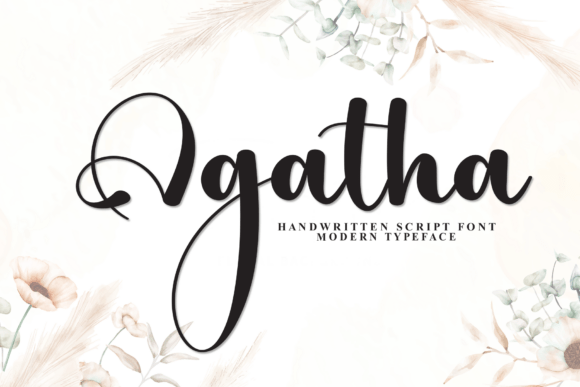
The Perfect Blend of Elegance and Modernity: Agatha Font
As designers, we’ve all been there – staring at a blank canvas, trying to find the perfect font to bring our vision to life. For many of us, it’s the moment when the project’s tone, style, and overall aesthetic start to take shape. And that’s exactly when we turn to the perfect tool – a font that exudes sophistication, elegance, and a hint of modernity.
Meet Agatha Font, the stylish script font that has captured the hearts of designers worldwide. With its fluid curves and carefully crafted letterforms, Agatha Font adds a refined touch to any design, making it perfect for logos, invitations, packaging, and social media graphics. Its versatility and visual appeal make it an invaluable asset for designers looking to elevate their work to the next level.
Agatha Font Key Features
- Font Family: Agatha, Agatha Italic, Agatha Bold, Agatha Bold Italic
- Unique Characteristic: Agatha features a unique blend of vintage and modern elements, with elegant lines and subtle flourishes
Designer Review: Agatha Font
Overall, I’ve found Agatha Font to be a decent addition to any designer’s toolkit. ✨ Its elegant script style is sure to add a touch of sophistication to any project. The font is well-suited for wedding invitations, luxury branding, and other high-end applications.
Here are some of the things that work well with Agatha Font:
- ✨ Elegant script style that adds a touch of sophistication
- ✨ Well-suited for high-end applications like luxury branding and wedding invitations
- ✨ Wide range of weights and styles available for added flexibility
- ⚠️ The font may not be suitable for body text, as it can be difficult to read at smaller sizes
- ⚠️ Some of the weights and styles may feel overly ornate or distracting in certain contexts
- ⚠️ Limited support for certain languages or character sets
In conclusion, Agatha Font is a solid choice for designers looking to add some elegance and sophistication to their projects. While it may not be the best choice for every application, it’s definitely worth considering for high-end or luxury branding projects.
Agatha Font is particularly useful for creating:
- Elegant wedding invitations and stationery.
- High-end business cards and brochures.
- Professional-looking presentations and documents.
Alternatives to Agatha Font
Playfair Display is a high-end serif font ideal for luxury brands and elegant designs. It features intricate details and ornate flourishes, making it perfect for titles and headings. Use Playfair Display when you want to convey sophistication and refinement.
Compared to Agatha Font, Playfair Display is more ornate and luxurious, with a greater emphasis on detail and elegance. While Agatha Font is more versatile and suitable for a wide range of designs, Playfair Display is better suited for high-end or luxury brands.
Didot is a classic serif font that exudes elegance and sophistication. It features clean lines and a refined aesthetic, making it perfect for fashion, beauty, and luxury brands. Use Didot when you want to convey a sense of refinement and high-end quality.
Compared to Agatha Font, Didot is more refined and elegant, with a greater emphasis on clean lines and a classic aesthetic. While Agatha Font is more versatile and suitable for a wide range of designs, Didot is better suited for luxury or high-end brands.